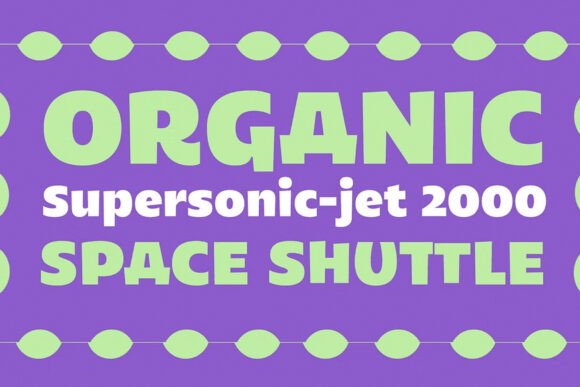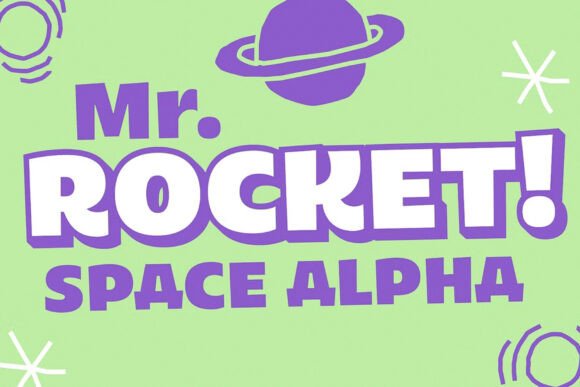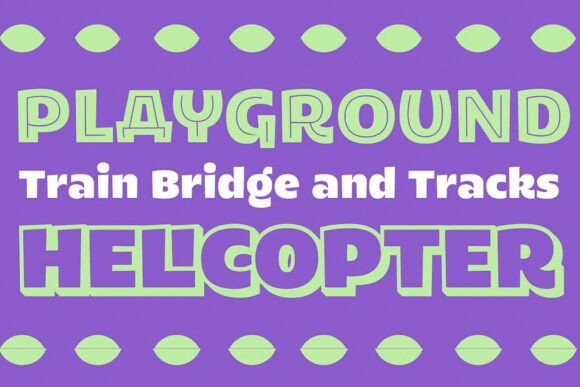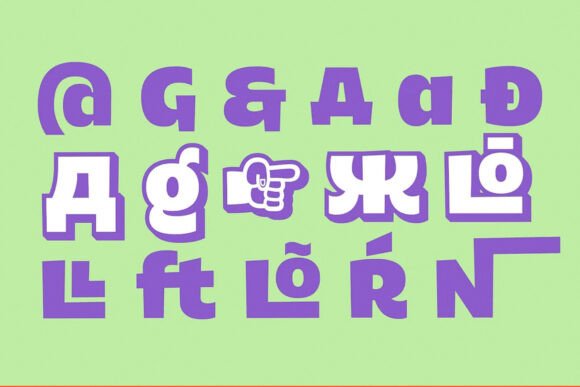
Introduction to Kiara Black Font
Kiara is an improved version of “Laika”, this font contains 4 styles to use together, and contains the Cyrillic alphabet, ligatures, and many Alternatives, especially for large titles.
Key Features of Kiara Black Font